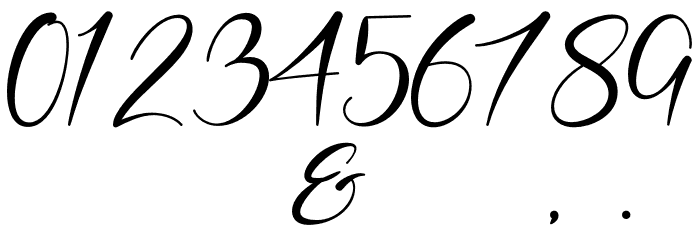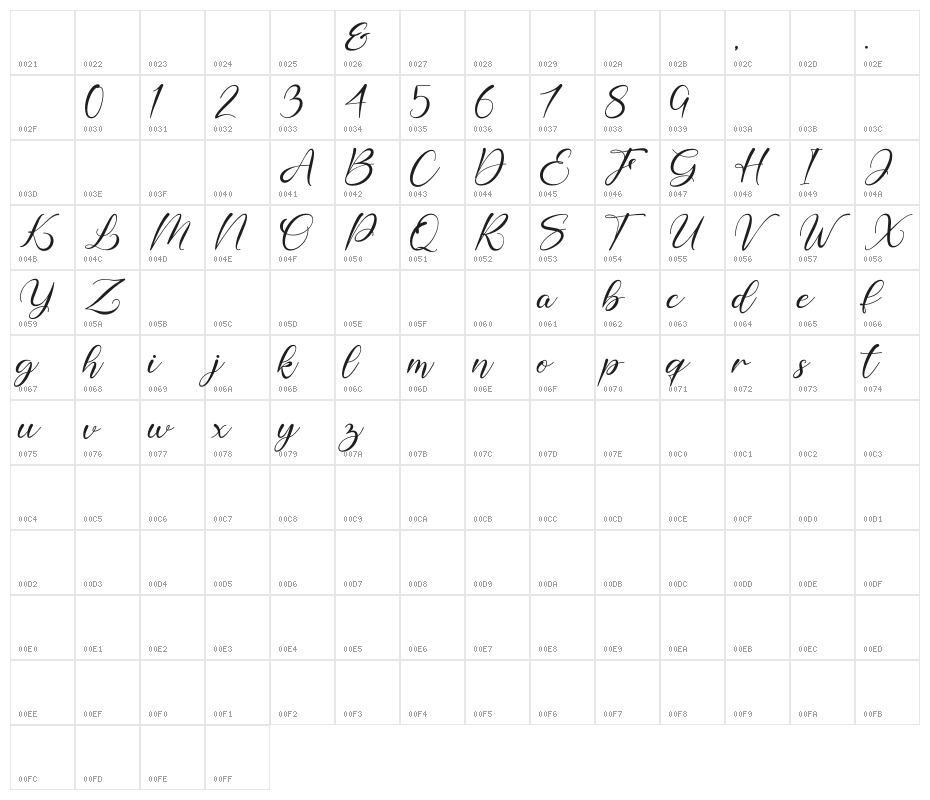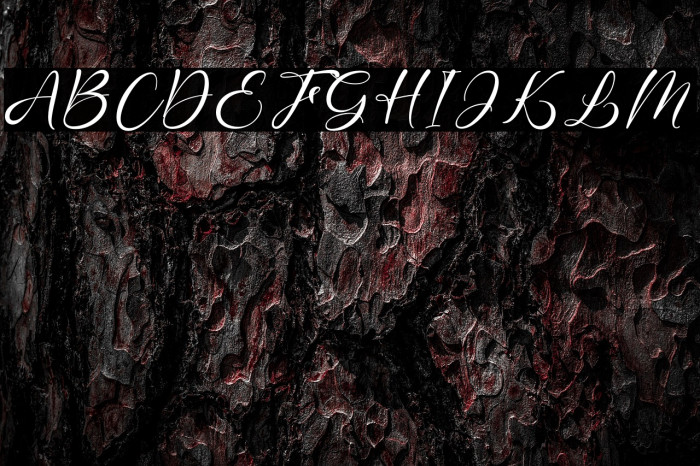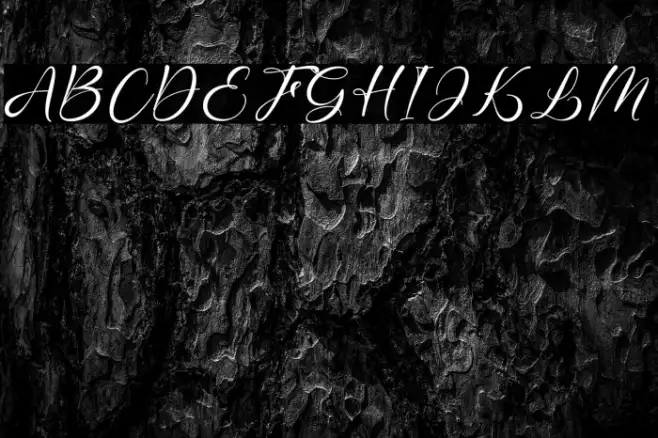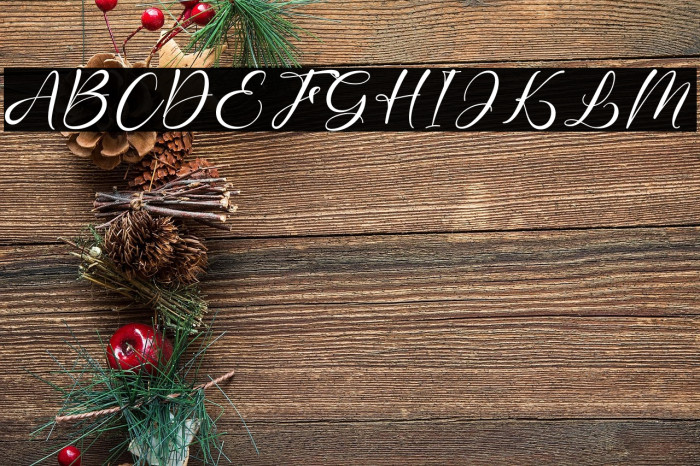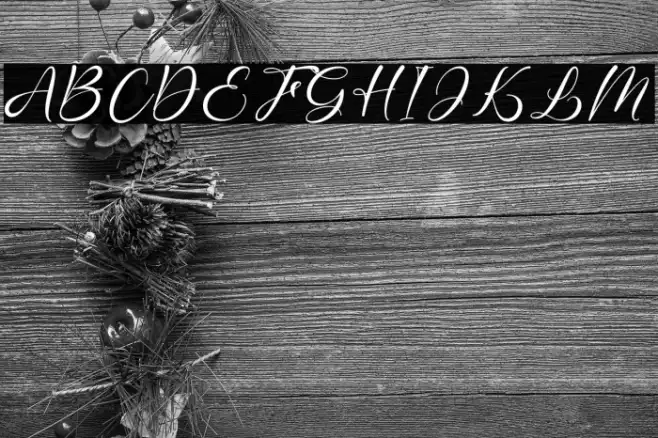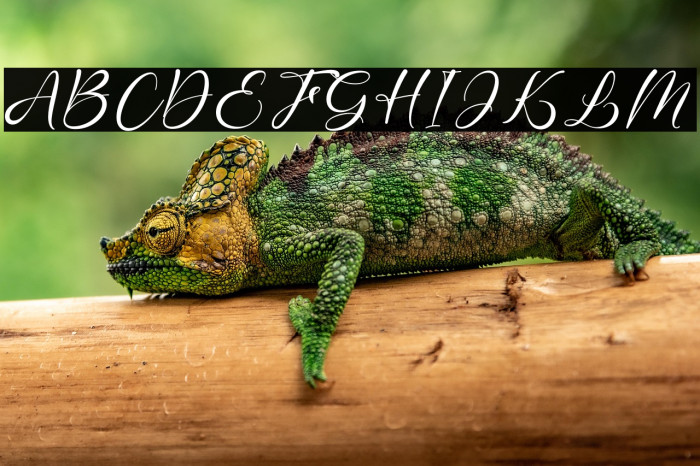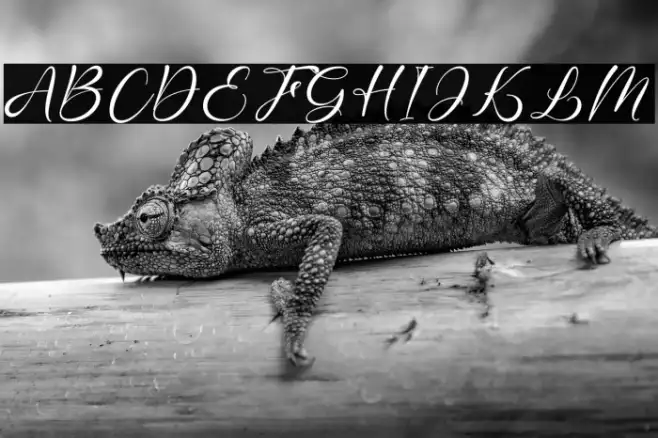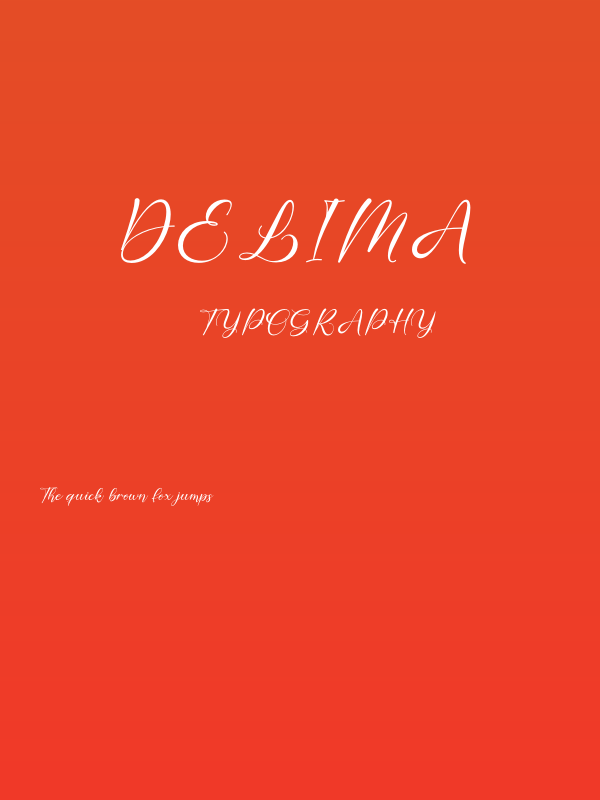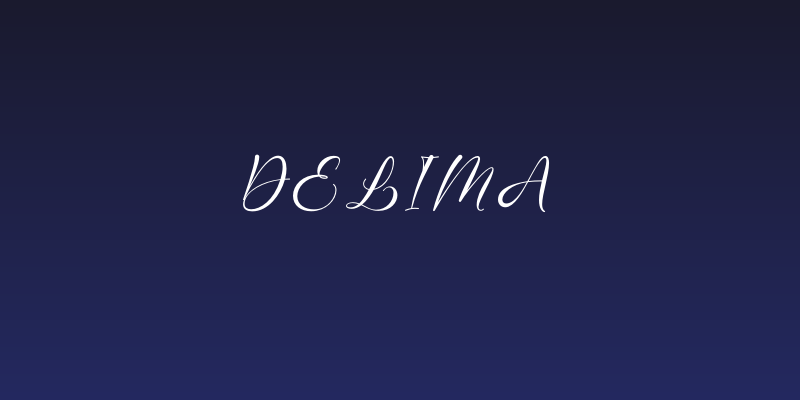
delima Font
delima Description
This elegant script font features a flowing, cursive style that exudes sophistication and grace. The uppercase letters are characterized by their sweeping curves and delicate loops, while the lowercase letters maintain a consistent fluidity, enhancing the overall aesthetic. The numerals are designed with a similar flair, ensuring a cohesive look across all characters. The font's design is both ornate and legible, making it suitable for a variety of applications where a touch of elegance is desired. The special characters, including the ampersand and punctuation marks, are crafted with the same attention to detail, seamlessly integrating with the rest of the font.